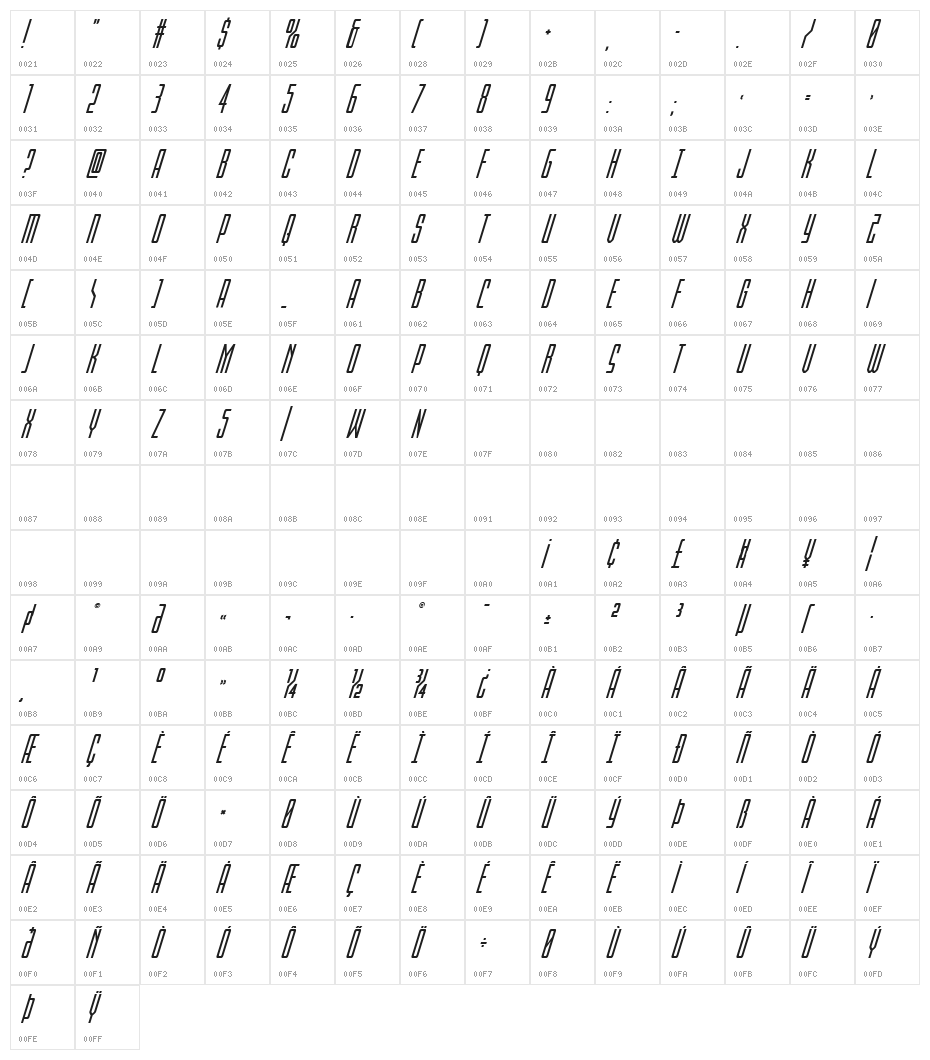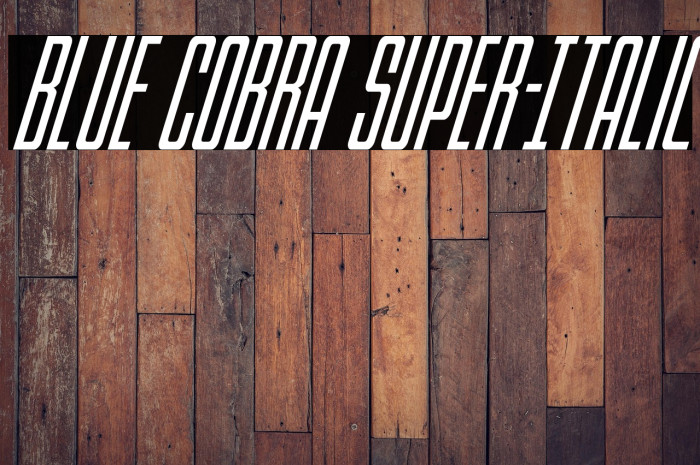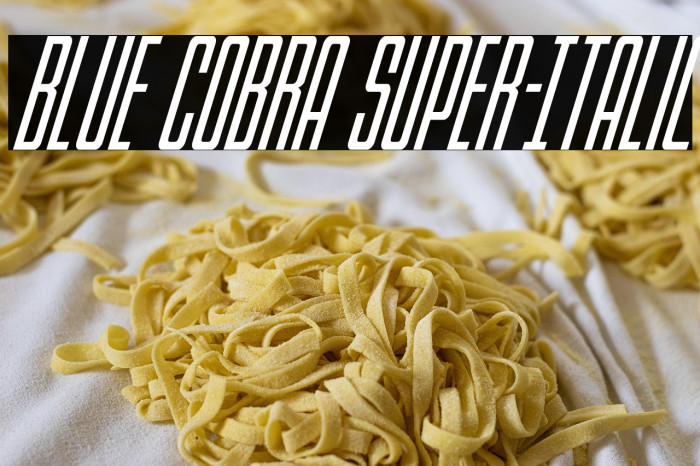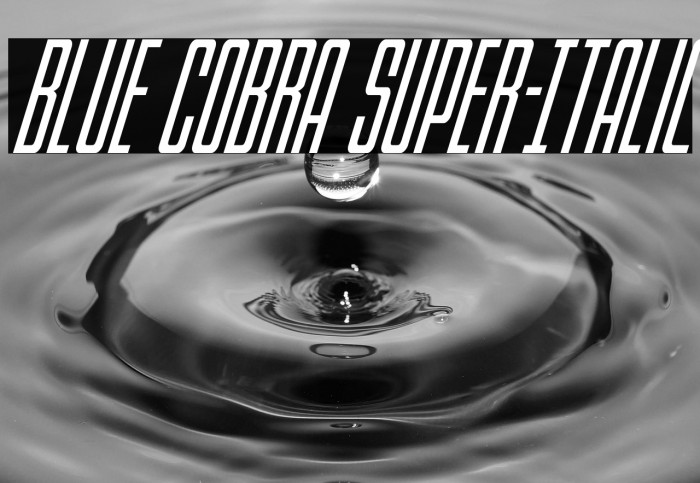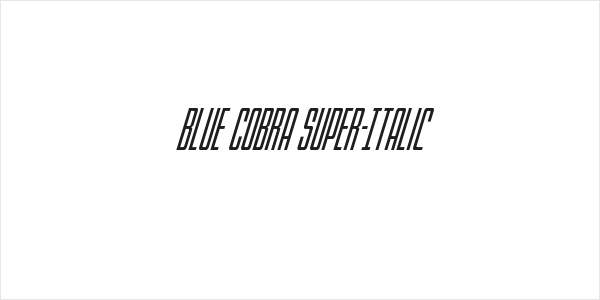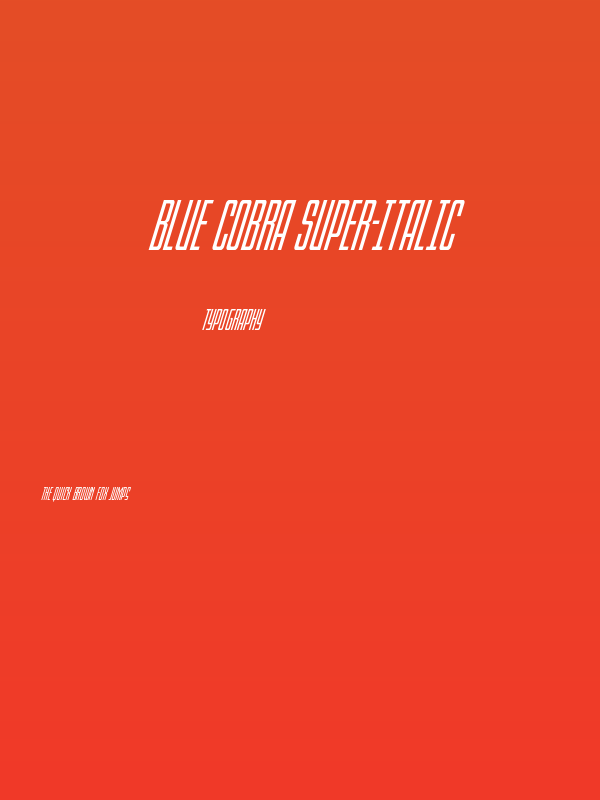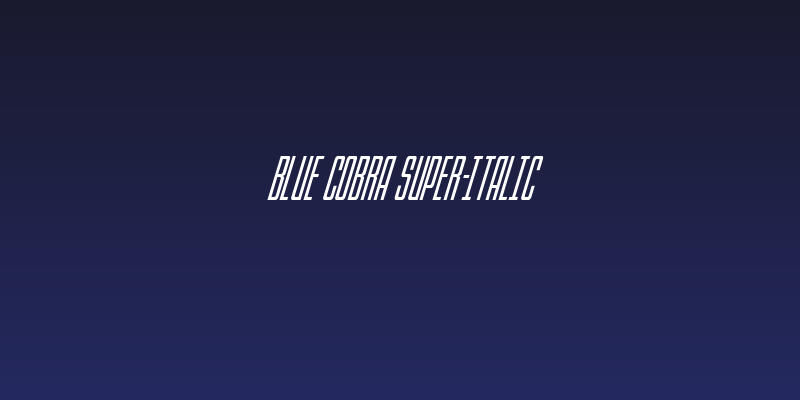
Blue Cobra Super-Italic Font
Blue Cobra Super-Italic Description
This font features a dynamic and energetic style with a pronounced italic slant, giving it a sense of motion and speed. The characters are elongated and narrow, contributing to a sleek and modern appearance. The strokes are consistent in width, providing a uniform look across all characters. The uppercase and lowercase letters maintain a cohesive design, while the numerals and special characters integrate seamlessly with the overall aesthetic. This font's distinctive style makes it ideal for projects that require a bold and contemporary touch.
| Proposed Projects | Ideal for sports branding, automotive advertisements, dynamic posters, and modern web design. |